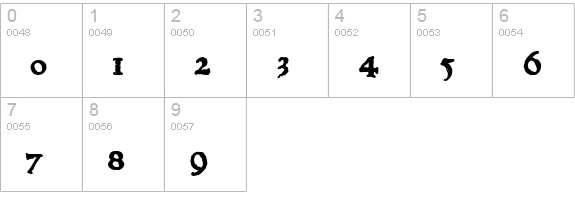
1543HumaneJenson Bold Font Details
1543HumaneJenson Bold is a strong, high-contrast variant in the 1543HumaneJenson typeface family \xE2\x80\x94 well suited to headlines, attention-grabbing titles, and strong calls-to-action.
1543HumaneJenson Bold font is a modern and stylish typeface that exudes sophistication and elegance. With its bold and strong appearance, this font is perfect for making a statement in your designs. The clean lines and classic proportions of 1543HumaneJenson Bold make it versatile and suitable for a wide range of design projects. What sets 1543HumaneJenson Bold font apart is its timeless appeal and versatility. Whether you are designing a logo, poster, website, or any other creative project, this font will add a touch of class and professionalism. Its bold weight commands attention and ensures that your message gets noticed. The best part is that 1543HumaneJenson Bold font is available for free download at FontsMarket.com. This means that you can easily access this high-quality font without any cost, making it a valuable addition to your font collection. Don't miss out on the opportunity to elevate your designs with the elegance and style of 1543HumaneJenson Bold font.